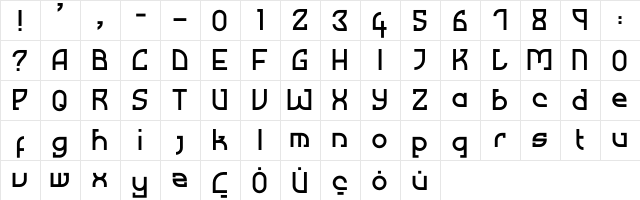
Mused Regular
| Designer | Tapiwanashe Garikayi |
Design Context for Mused Typeface
Mused takes a measured approach to typography — its balanced proportions and neutral character make it a reliable workhorse for both digital and print work.